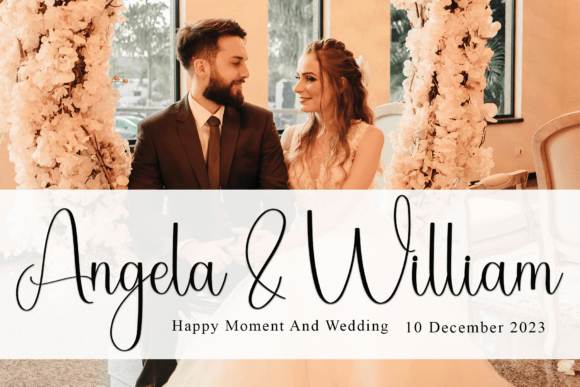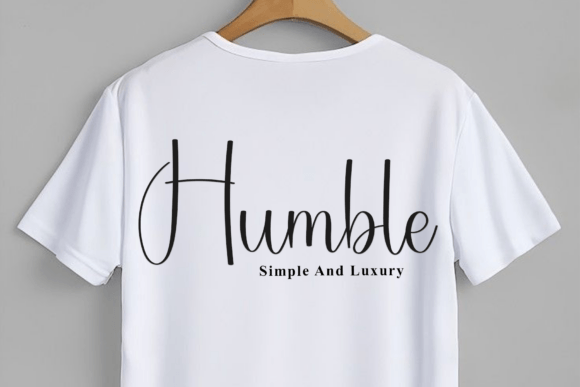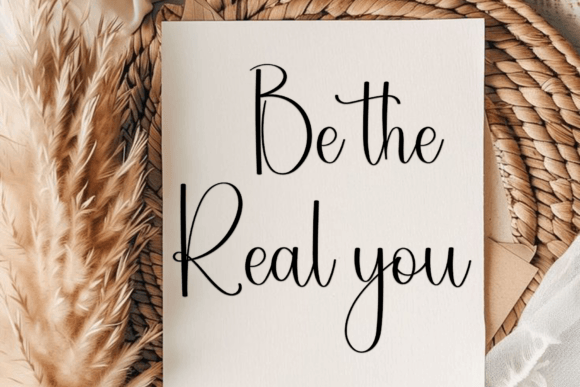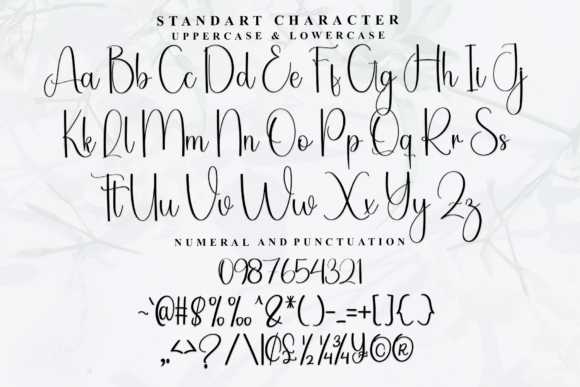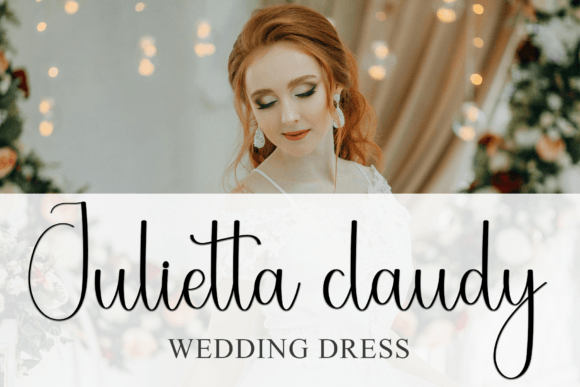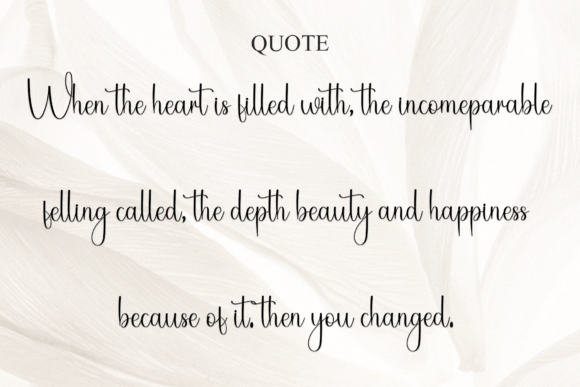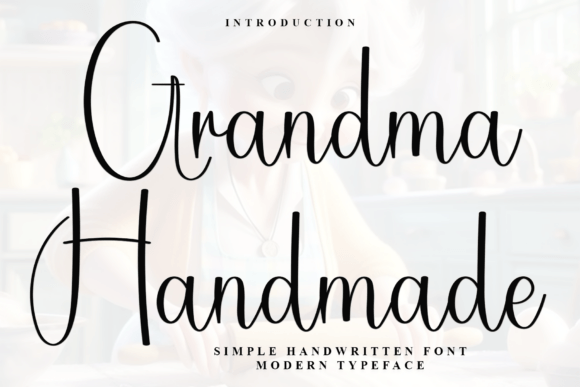
Introducing Grandma Handmade Font: The Cozy, Handwritten Script that Adds a Personal Touch
Are you looking for a font that exudes warmth, comfort, and a sense of nostalgia? Look no further than Grandma Handmade, a beautiful, handwritten script font that is sure to add a personal touch to any project. With its charming, flowing letters and cozy feel, Grandma Handmade is the perfect choice for designers, crafters, and anyone looking to add a little love to their work.
The Story Behind Grandma Handmade
Grandma Handmade is more than just a font – it’s a feeling. It’s the sense of warmth and comfort that comes from knowing that something was made with love. This font is designed to evoke the feeling of a handwritten note from a loved one, or the personal touch of a handmade craft. With Grandma Handmade, you can add a little bit of that love to your projects, making them feel more personal and special.
What Makes Grandma Handmade So Special?
So, what sets Grandma Handmade apart from other fonts? Here are just a few things that make it truly special:
- Handwritten with love: Grandma Handmade is a truly handwritten font, crafted with love and care to ensure that every letter and every stroke is unique and full of character.
- Charming, flowing letters: The letters in Grandma Handmade are designed to flow together seamlessly, creating a sense of movement and energy that is sure to capture your audience’s attention.
- Cozy and inviting: Grandma Handmade has a warm, cozy feel that is sure to make your projects feel more inviting and personal.
- Perfect for a variety of projects: Whether you’re working on a craft project, a design project, or just want to add a personal touch to your digital creations, Grandma Handmade is the perfect choice.
Using Grandma Handmade in Your Projects
So, how can you use Grandma Handmade in your projects? The possibilities are endless! Here are a few ideas to get you started:
- Crafting and scrapbooking: Grandma Handmade is a natural fit for crafting and scrapbooking projects, where its handmade feel can add a personal touch to your creations.
- Digital design: Whether you’re designing social media graphics, blog posts, or website content, Grandma Handmade can add a warm, personal touch to your digital creations.
- Stationery and cards: Grandma Handmade is perfect for creating handmade stationery and cards, where its handwritten feel can add a personal touch to your correspondence.
Tips for Getting the Most Out of Grandma Handmade
Here are a few tips for getting the most out of Grandma Handmade:
- Use it sparingly: While Grandma Handmade is a beautiful font, it can be overwhelming if used too much. Use it sparingly to add a touch of personality to your projects.
- Pair it with other fonts: Grandma Handmade pairs well with a variety of other fonts, so don’t be afraid to experiment with different combinations to find the perfect look for your project.
- Experiment with colors and textures: Grandma Handmade looks great in a variety of colors and textures, so don’t be afraid to experiment to find the perfect look for your project.
Grandma Handmade is a truly special font that can add a personal touch to any project. With its charming, flowing letters and cozy feel, it’s the perfect choice for designers, crafters, and anyone looking to add a little love to their work. Whether you’re working on a craft project, a design project, or just want to add a personal touch to your digital creations, Grandma Handmade is sure to become a favorite font in your collection.